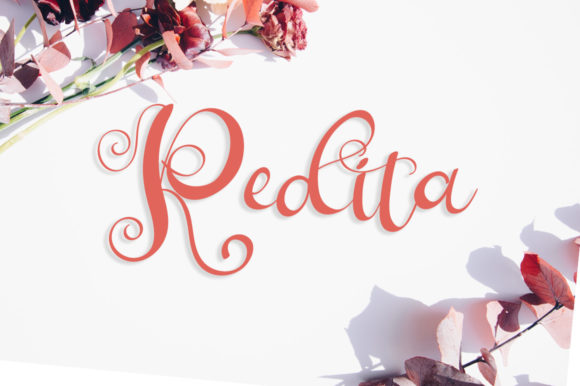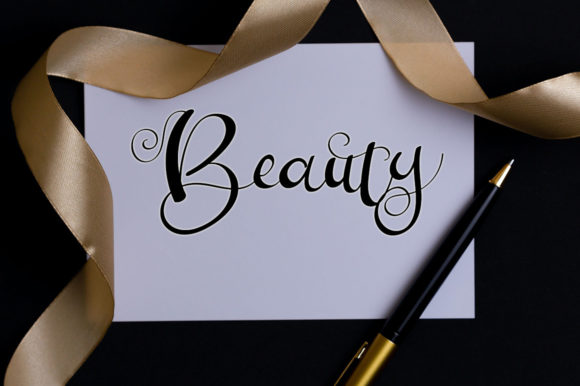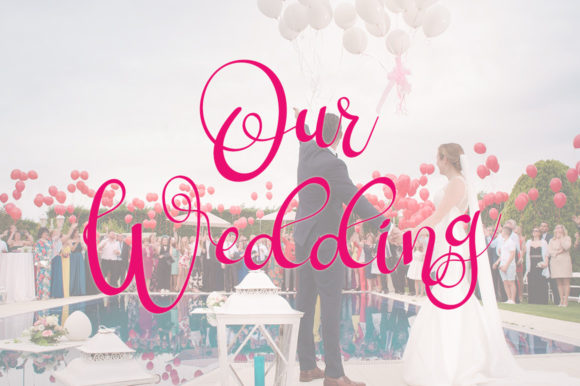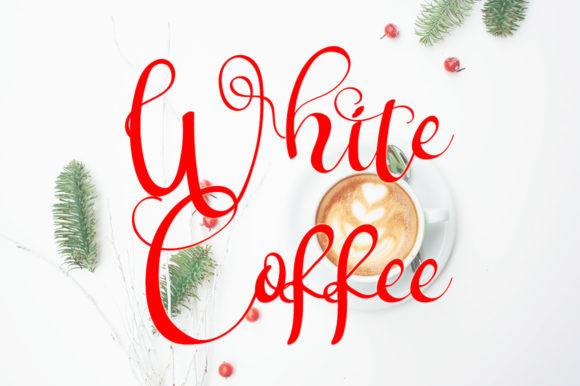
Whatever Font
About Whatever Font
Whatever is a beautiful and sweet font. It will look amazing in a great amount of projects, both formal and informal. Add it confidently to your projects, and you will love the results.